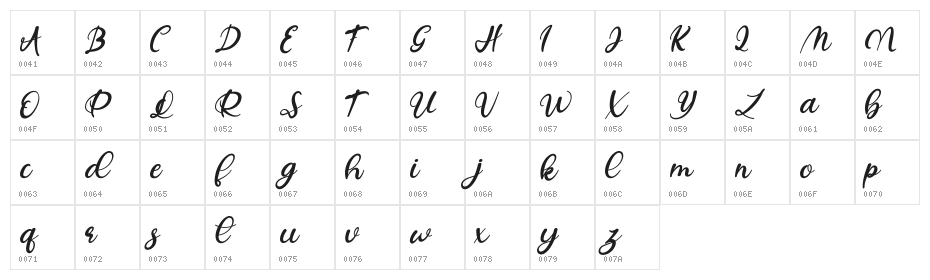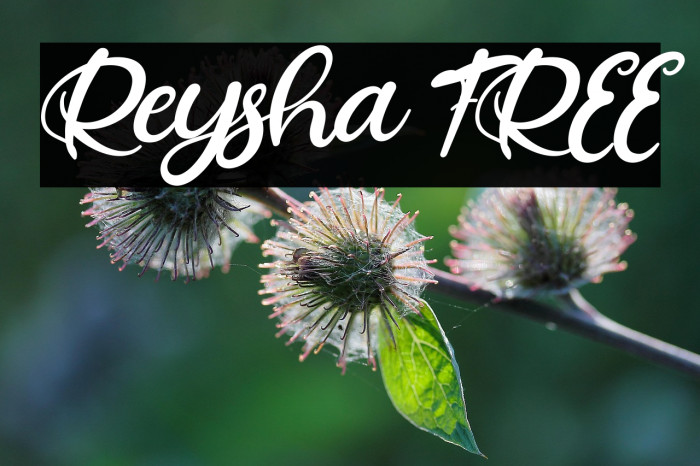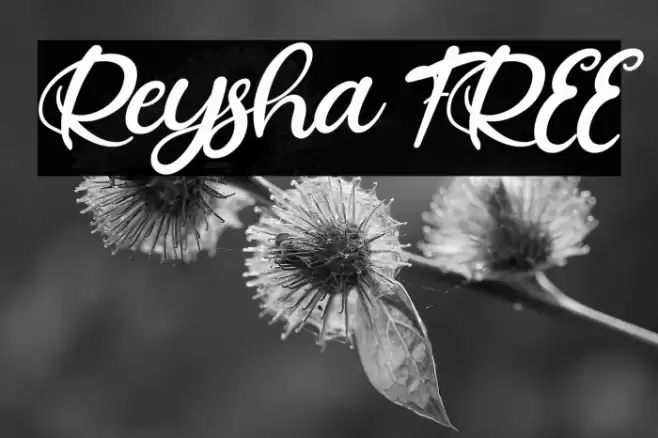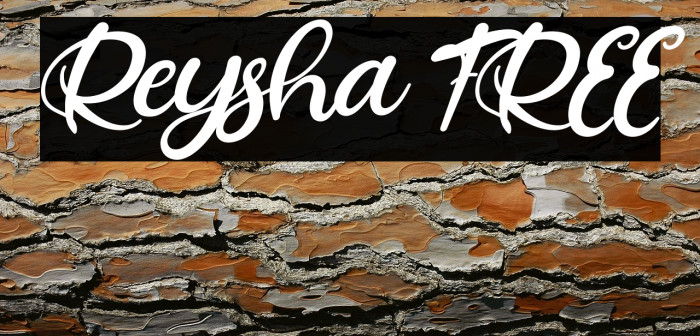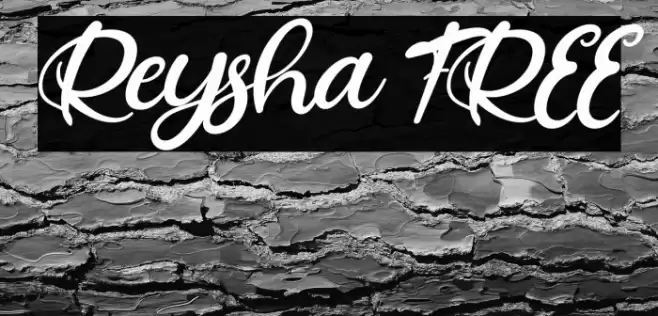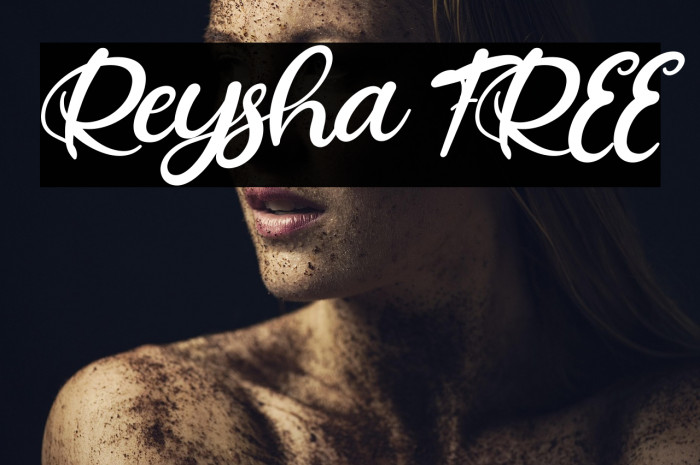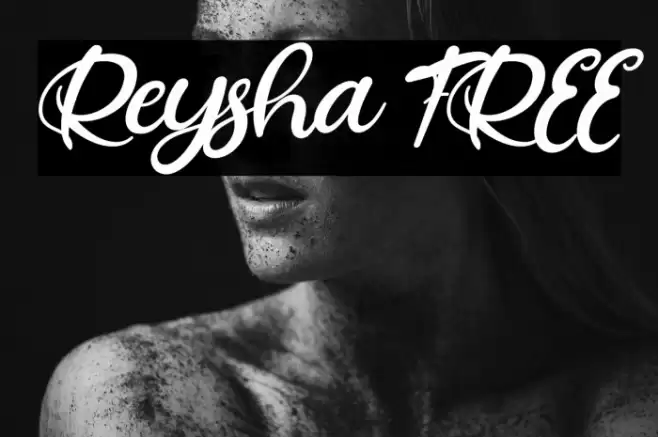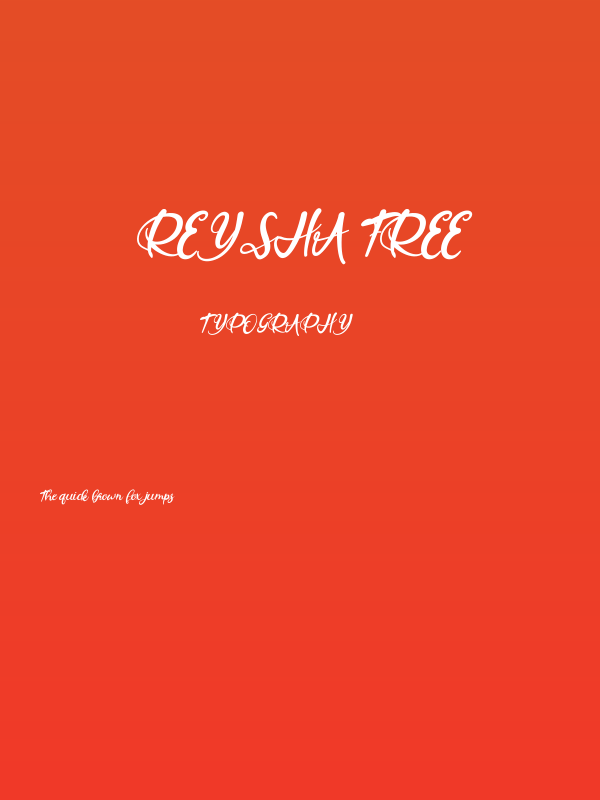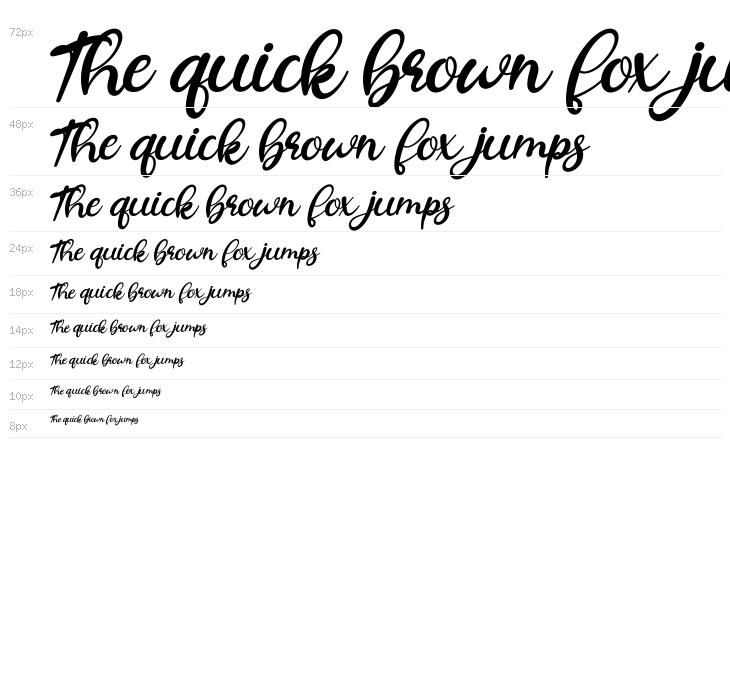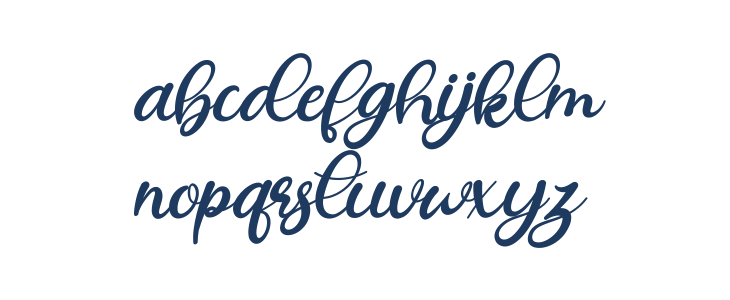
Reysha FREE Font
Reysha FREE Description
This font exudes a dynamic and elegant script style, characterized by its fluid and cursive letterforms. The strokes are smooth and connected, giving it a handwritten appearance that is both sophisticated and approachable. The uppercase letters are bold and prominent, while the lowercase letters maintain a consistent flow, enhancing readability. The font's design incorporates a slight slant, adding to its graceful and stylish look. It is well-suited for creative projects that require a personal touch, such as invitations, branding, and artistic designs.
| Use Case | Logos, Invitations, Artistic designs |
| Proposed Projects | Ideal for wedding invitations, branding, greeting cards, and artistic designs. |